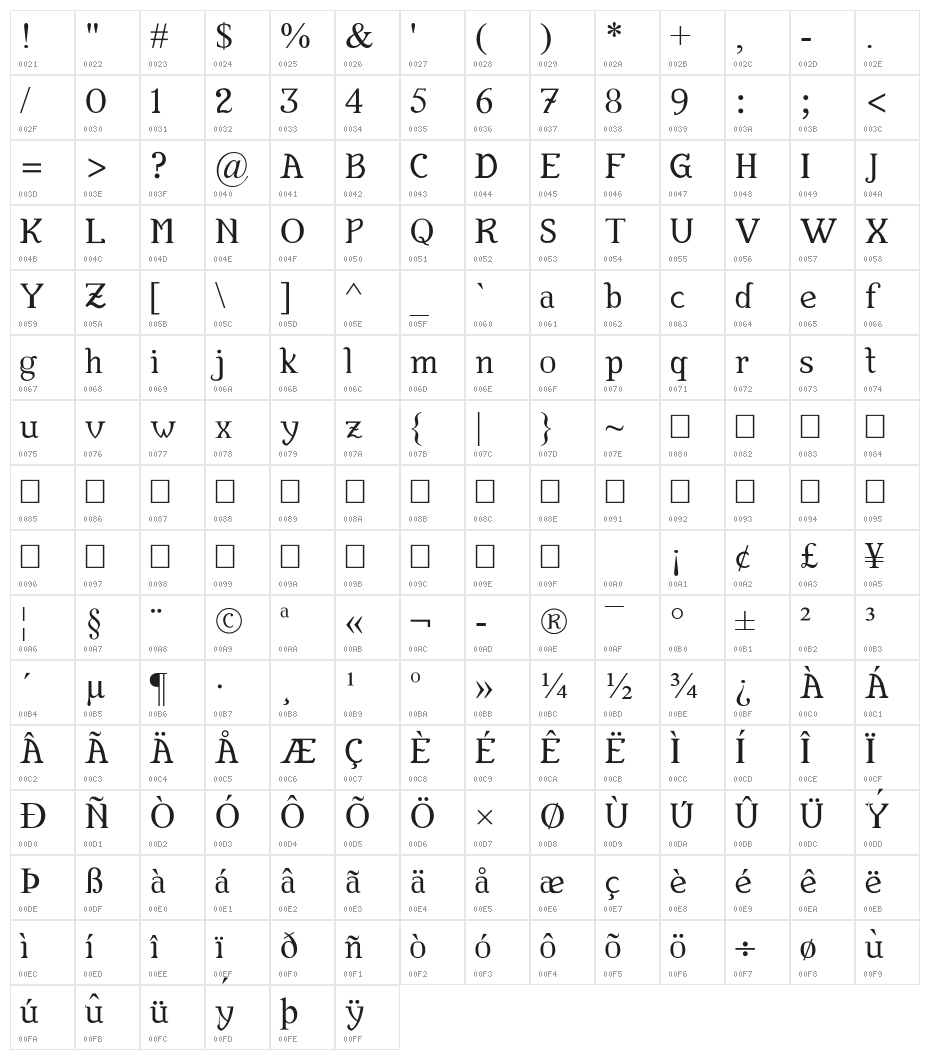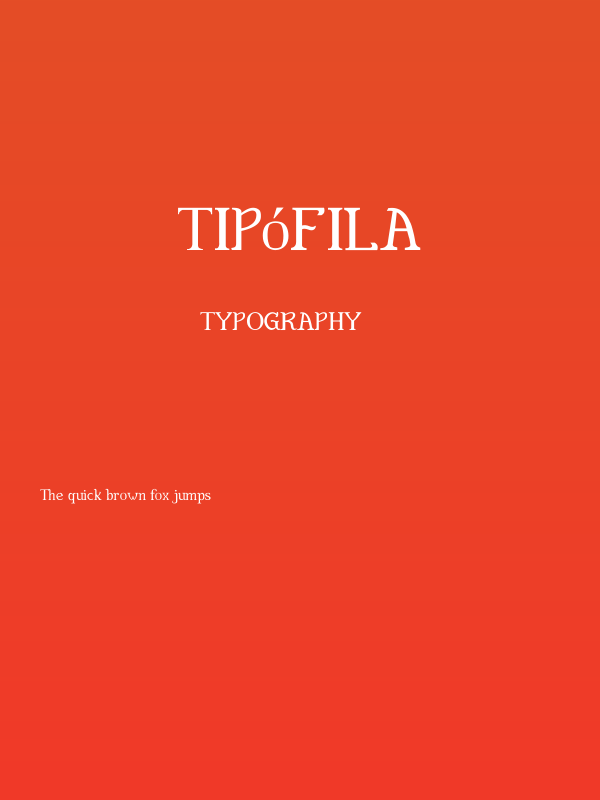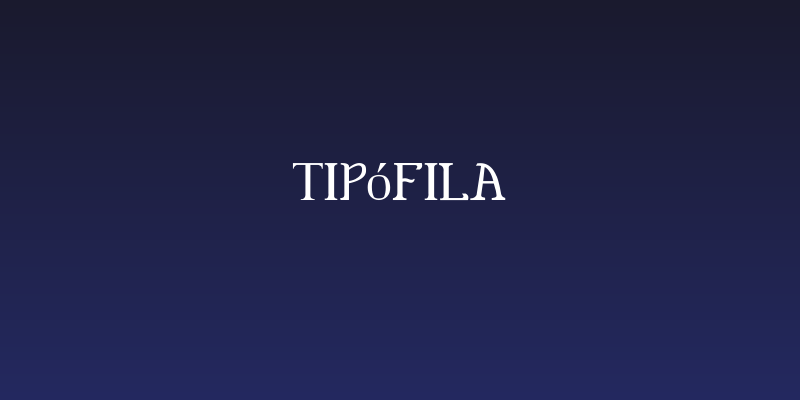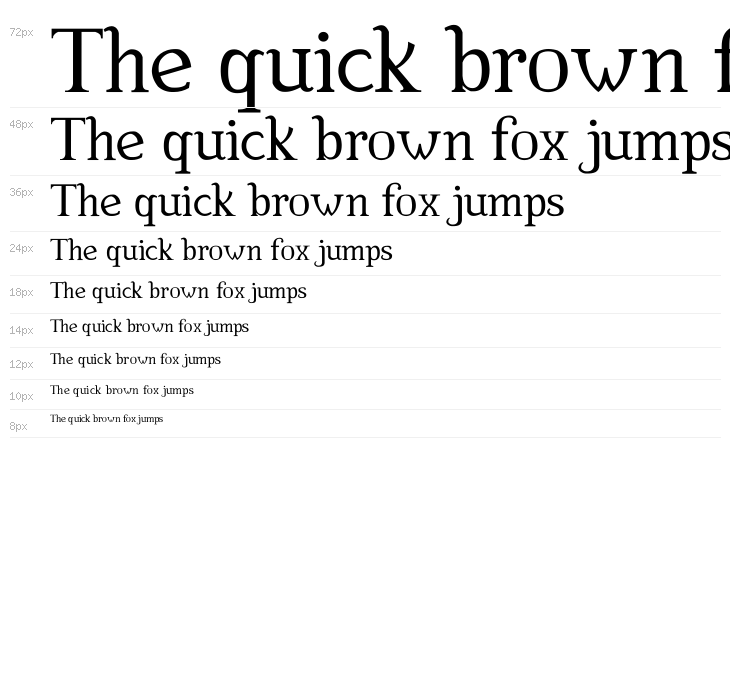
Tipófila Font
Tipófila Description
This font features a classic serif style with elegant curves and a refined appearance. The uppercase letters are bold and commanding, while the lowercase letters maintain a consistent and harmonious flow. The numerals are well-proportioned, offering a traditional look that complements the overall design. Special characters are distinct and integrate seamlessly with the rest of the typeface. The font's design is suitable for conveying a sense of sophistication and timelessness, making it ideal for formal documents and branding that requires a touch of elegance.
| Proposed Projects | Ideal for formal documents, branding, invitations, and editorial design where elegance and tradition are desired. |